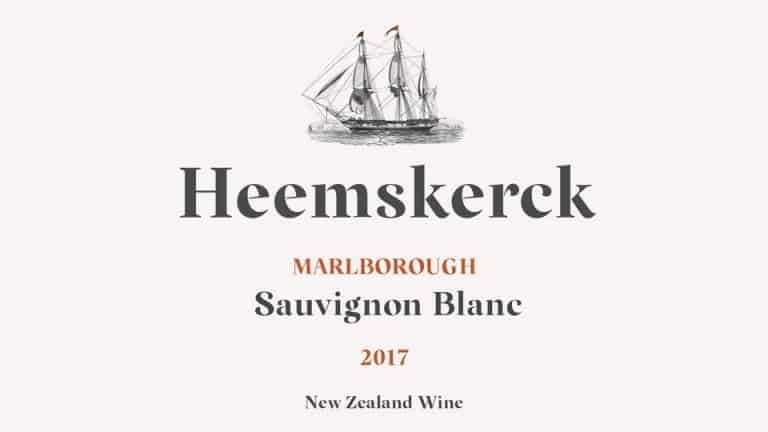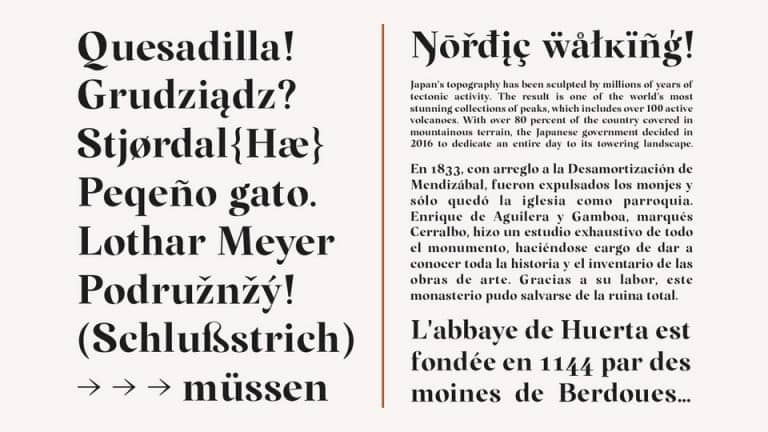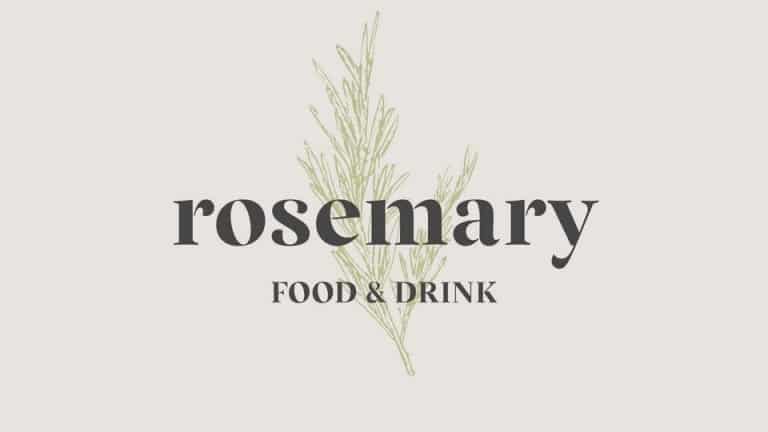
Margaret Serif Font
Margaret Serif Font is a Luxury and modern serif font that give any text a smooth, calming motion. It’s designed and shared by Kacper Janusiak. High contrast style of the Margaret making it perfect for titling, headlines, logotype, and branding projects. It work well with close line spacing and stunning headlines are a breeze to create.